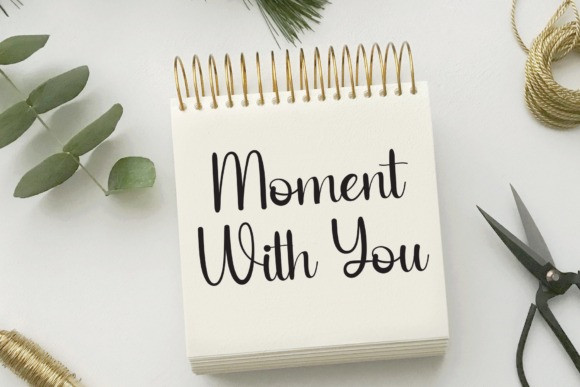
William Font
William Font is a stylish and dainty script font. It is suitable for any projects such as: logos, branding projects, label, photography, watermark, special events, and all your other lovely projects that need a beautiful script taste.